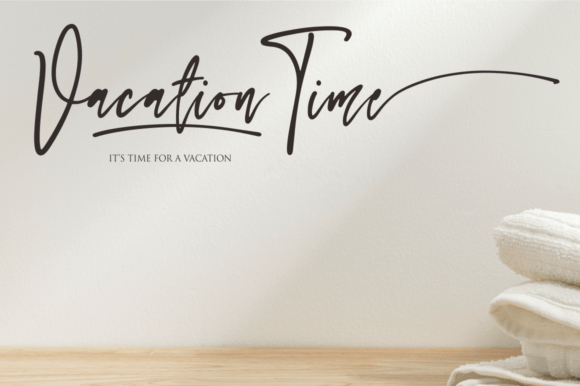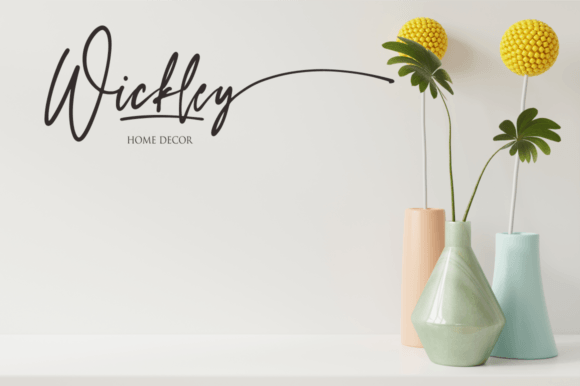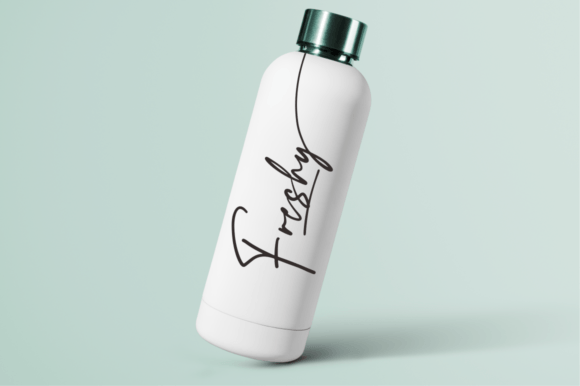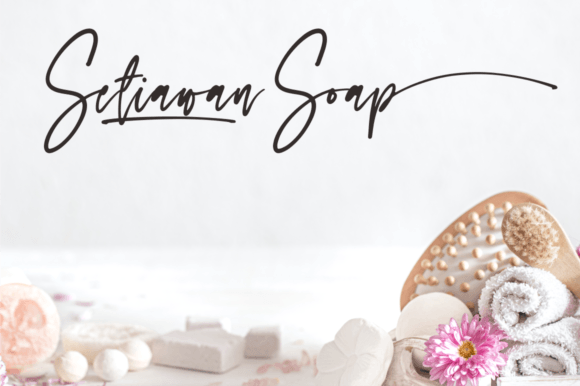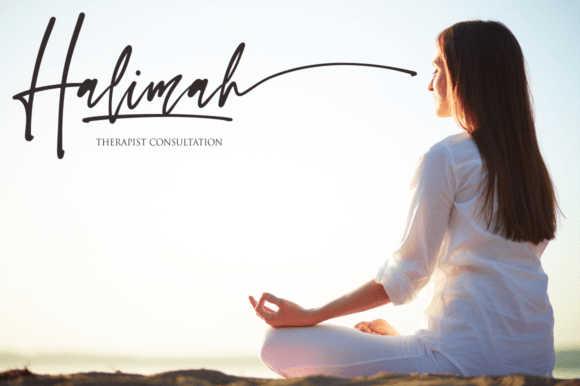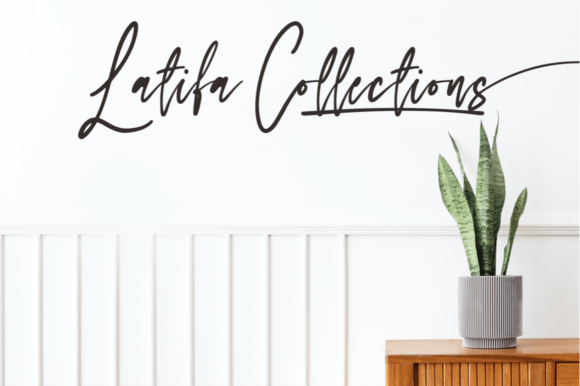
Introduction to Lampard Signature Font
Lampard Signature is a stylish and elegant handwritten script font.
Dainty and joyful, this font will be ideal for writing wedding invitations, cards, or any other design that may need a romantic, personalized touch Lampard Signature is PUA encoded which means you can access all the glyphs and swashes with ease.
Lampard Signature Font offers exceptional quality and versatility, making it a valuable addition to your design toolkit. Whether you’re creating for personal projects or commercial use, Lampard Signature Font delivers professional results.